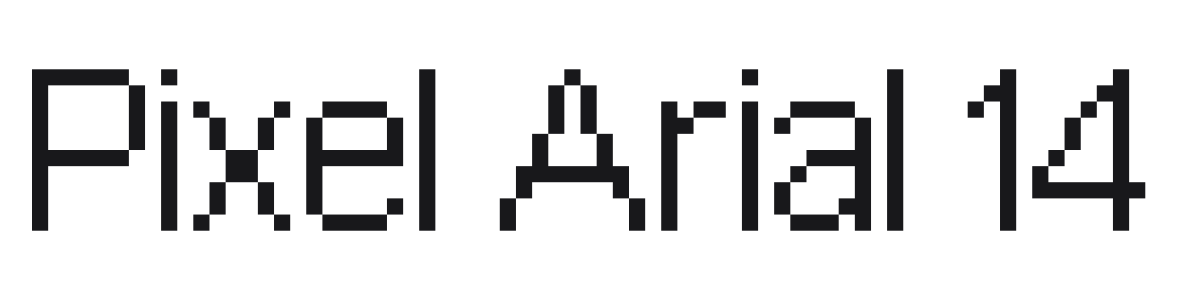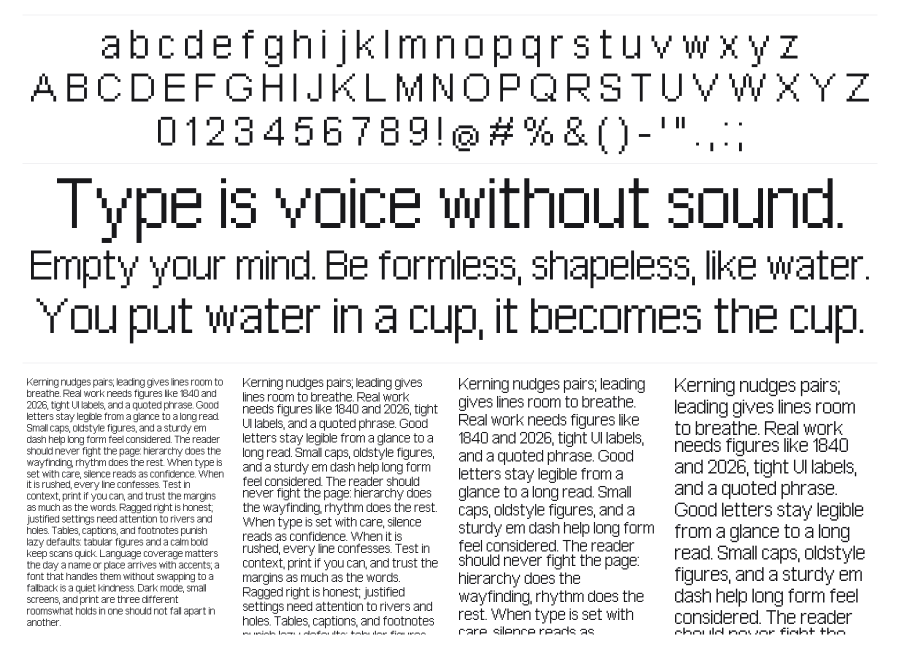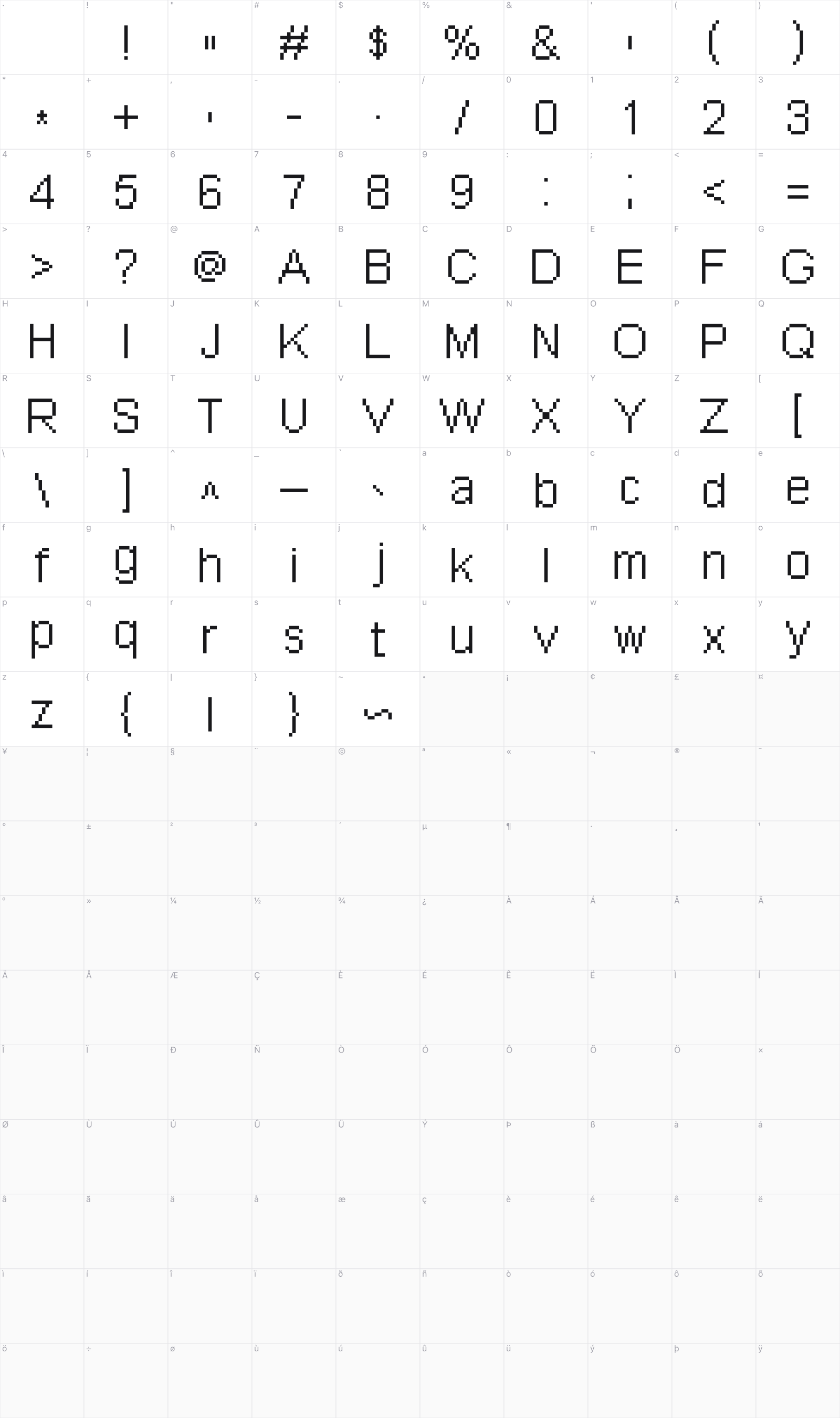
Pixel Arial 14
by RAIDer1
Pixel Arial 14 is a pixel-grid font that faithfully recreates the bitmap rendering of Arial at 14 pixels. Every character is built from discrete square blocks, making the digital construction impossible to miss. It belongs to the tradition of early screen fonts and works naturally in game UIs, pixel art projects, and retro-themed designs.